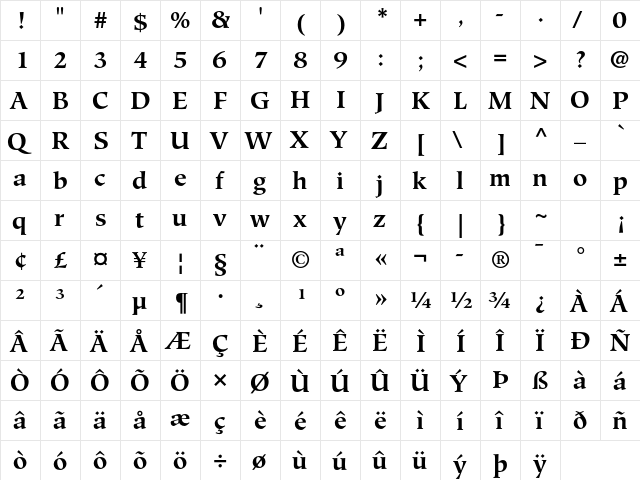
Hiroshige Std Bold
| Designer | Cynthia Hollandsworth |
Design Context for Hiroshige Std Typeface
Hiroshige Std offers clean, dependable letterforms without strong stylistic allegiance, making it a practical choice for designers who need flexibility. Its bold stroke weight gives it real presence on the page.